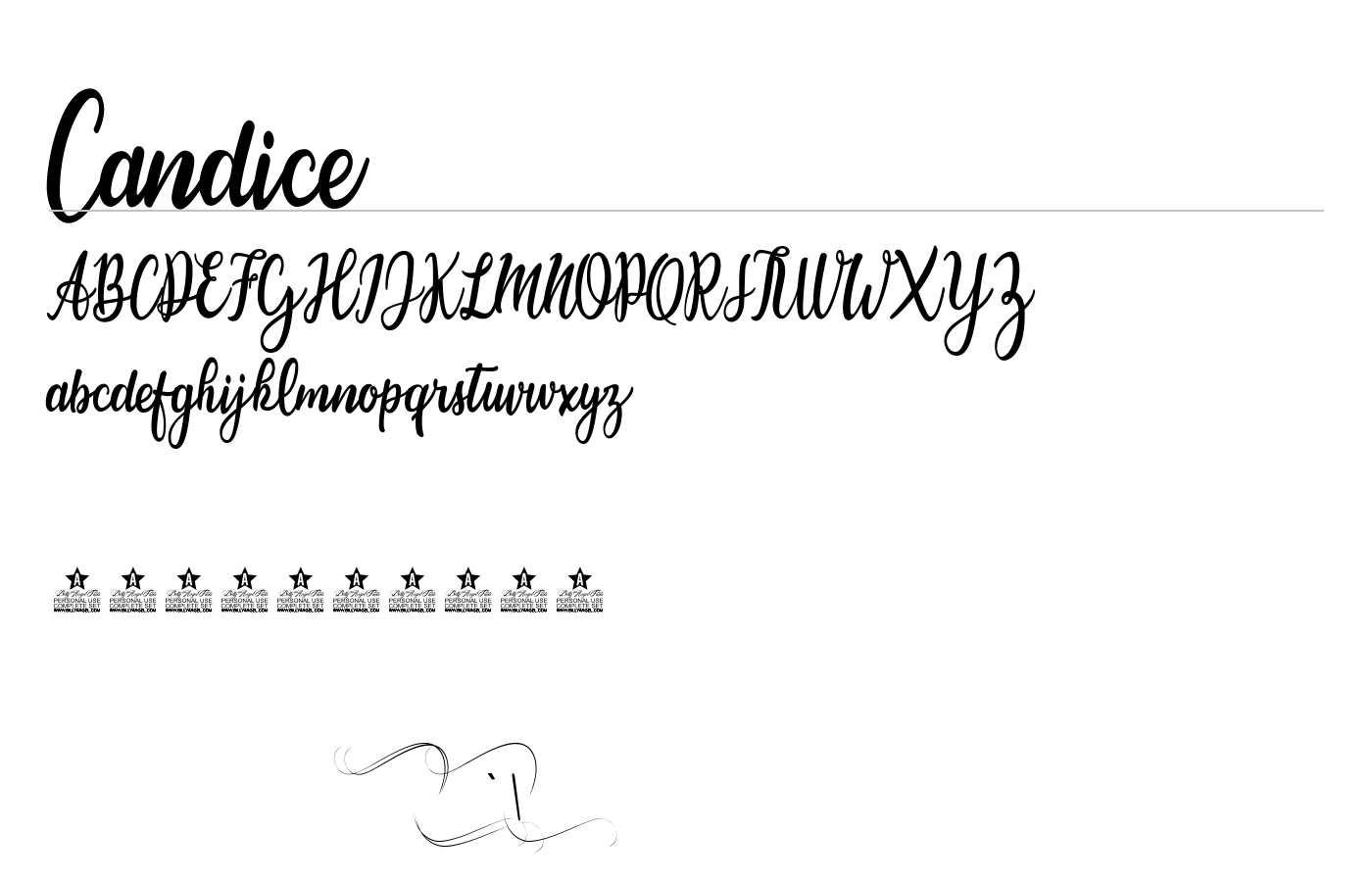
Candice is a lively script font with a handwritten charm, featuring smooth, flowing strokes and a medium weight that balances elegance with readability. Its fluid letterforms, including playful curls and loops, make it a great choice for creating warm, personal branding, invitations, and stylish headlines where a friendly yet sophisticated touch is needed. This font works beautifully to convey creativity and approachability in both digital and print designs.
Candice Font
About Candice Font
| Font family | Candice Font |